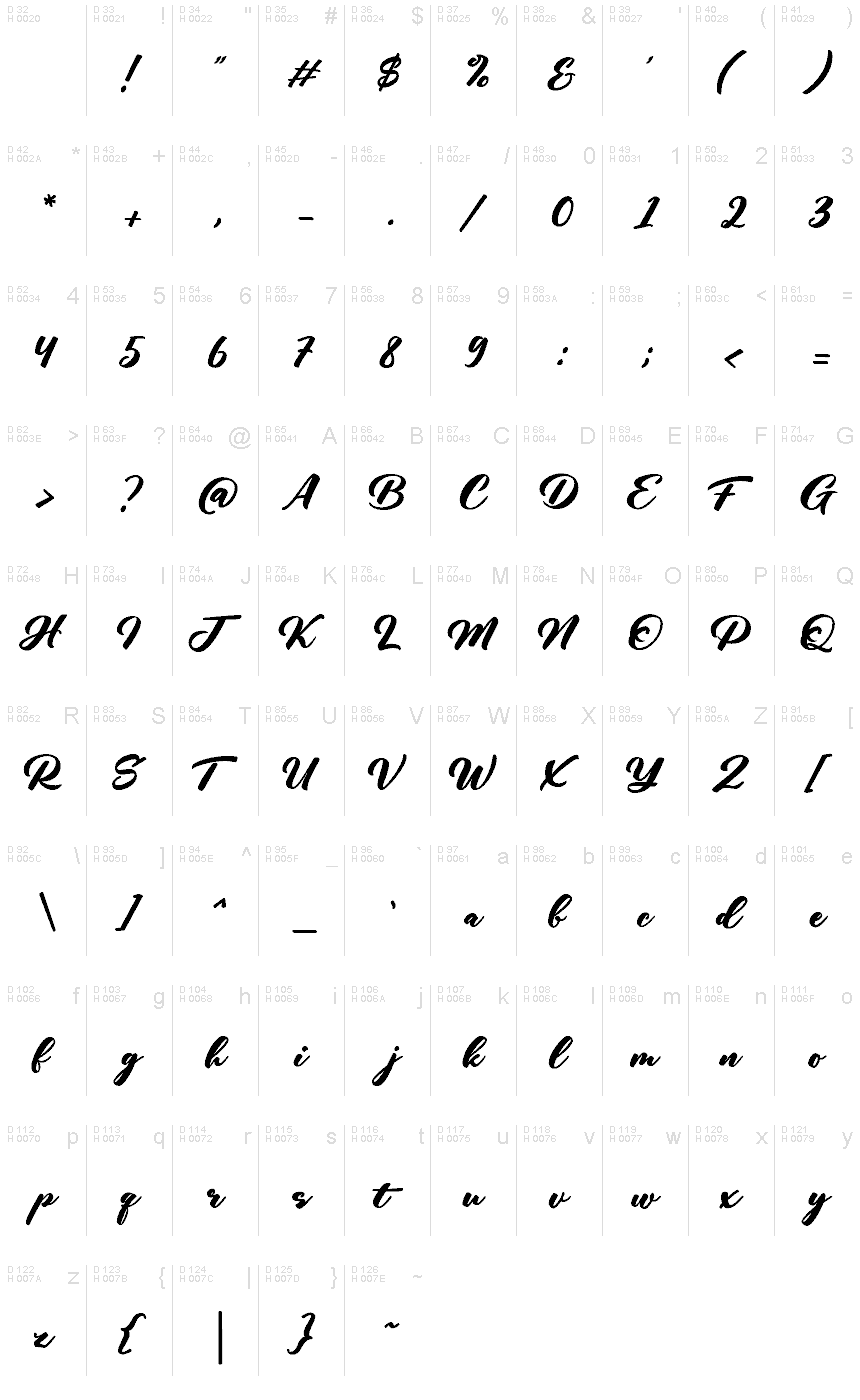
The Diplomat Signature
The Diplomat Signature font by Letternun is a flowing and sophisticated brush typeface with a script-like appearance. It brings out elegant and expressive elements with its subtle formal ambiance. This free signature font will bring your projects to the forefront, impressing the viewer from the first glance.